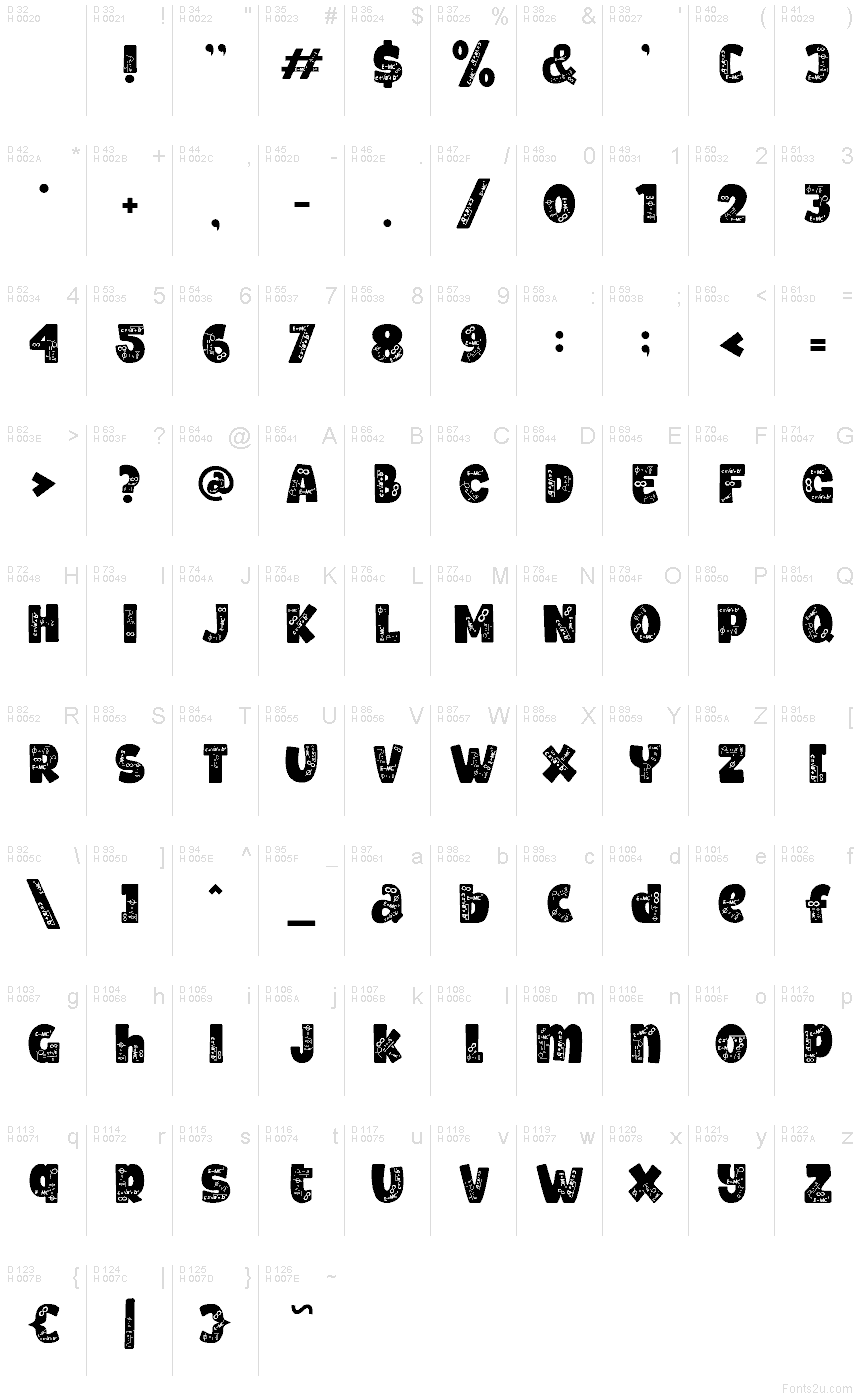
Study Symbol Math
Study Symbol Math font is a free bold decorative display font designed by PutraCetol Studio. It has a visually textured and distinctive concept with thick lines, balanced shapes, and unique endings. Equally quirky, artistic, whimsical, and intricate this typeface will make your projects stand out.
Use Study Symbol Math in unconventional print designs such as high school or college yearbooks. They are also perfect for magazine covers, book cover titles in the educational niche and outside it as well.